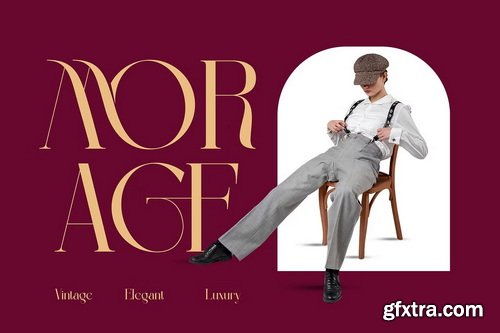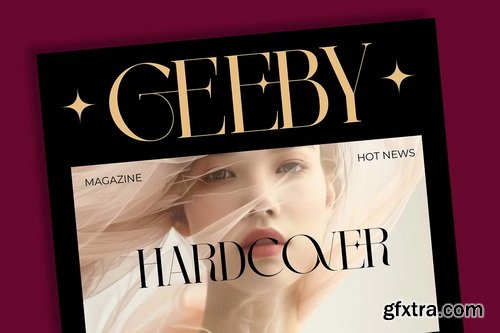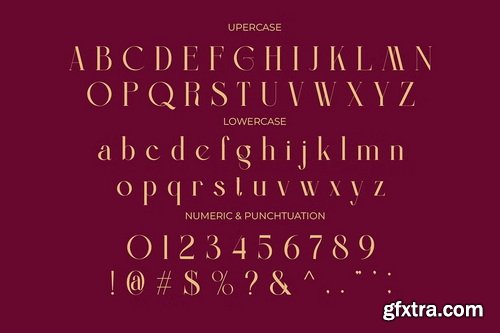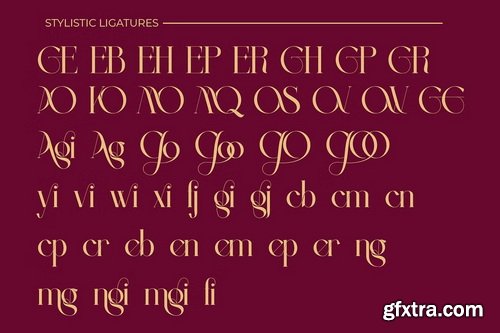
CreativeMarket - Mover Modern Ligature Serif
Mover an elegant ligature serif modern font that evokes the beauty of fresh blooms and timeless elegance. With its bold yet refined ligatures, Mover stands out as a sophisticated and feminine typeface. Perfect for upscale designs, whether for florals, fashion, or high-end branding, Mover pairs the charm of classic serif styles with a modern twist. Every letter feels intentional, with a soft and graceful presence that elevates any project it touches. Bring a touch of refinement and natural grace to your work with Mover. Let this font breathe elegance into your designs, and watch them flourish with style and character. Accessible in the Adobe Illustrator, Adobe Photoshop, Corel Draw. PUA Encoded Characters - Fully accessible without additional design software. Fonts include multilingual support